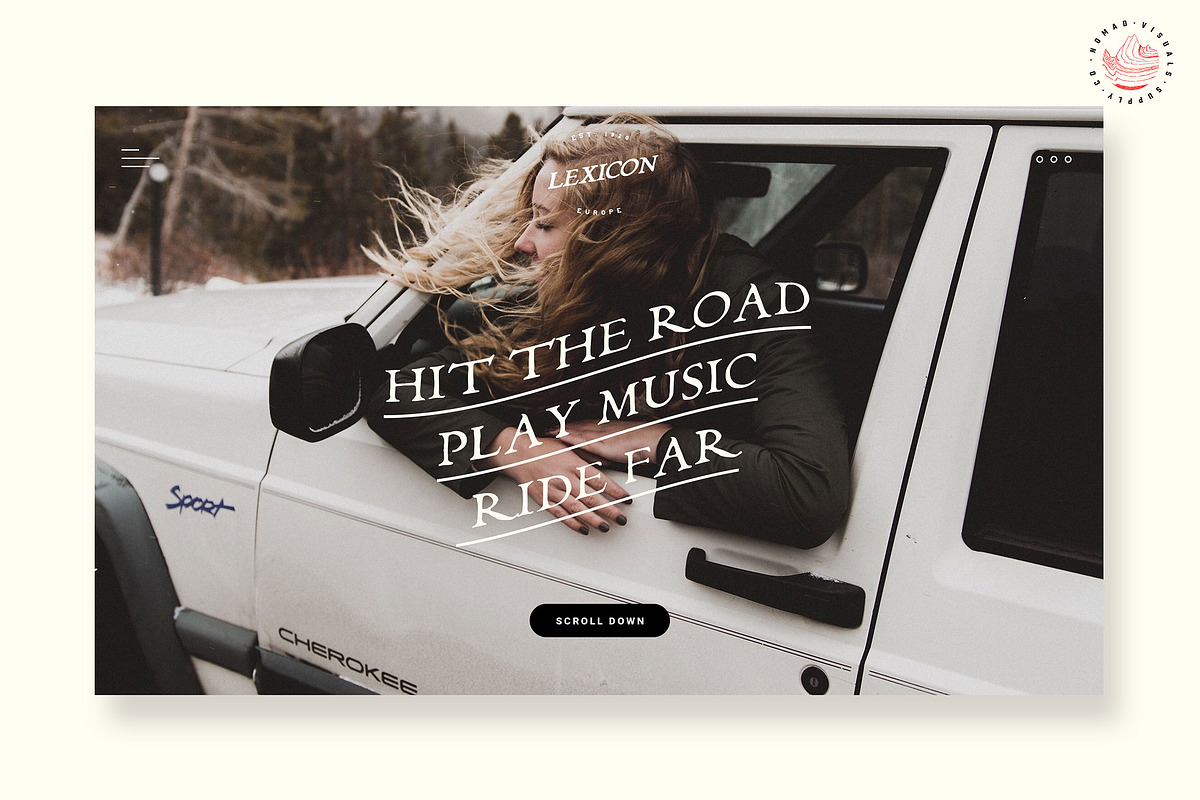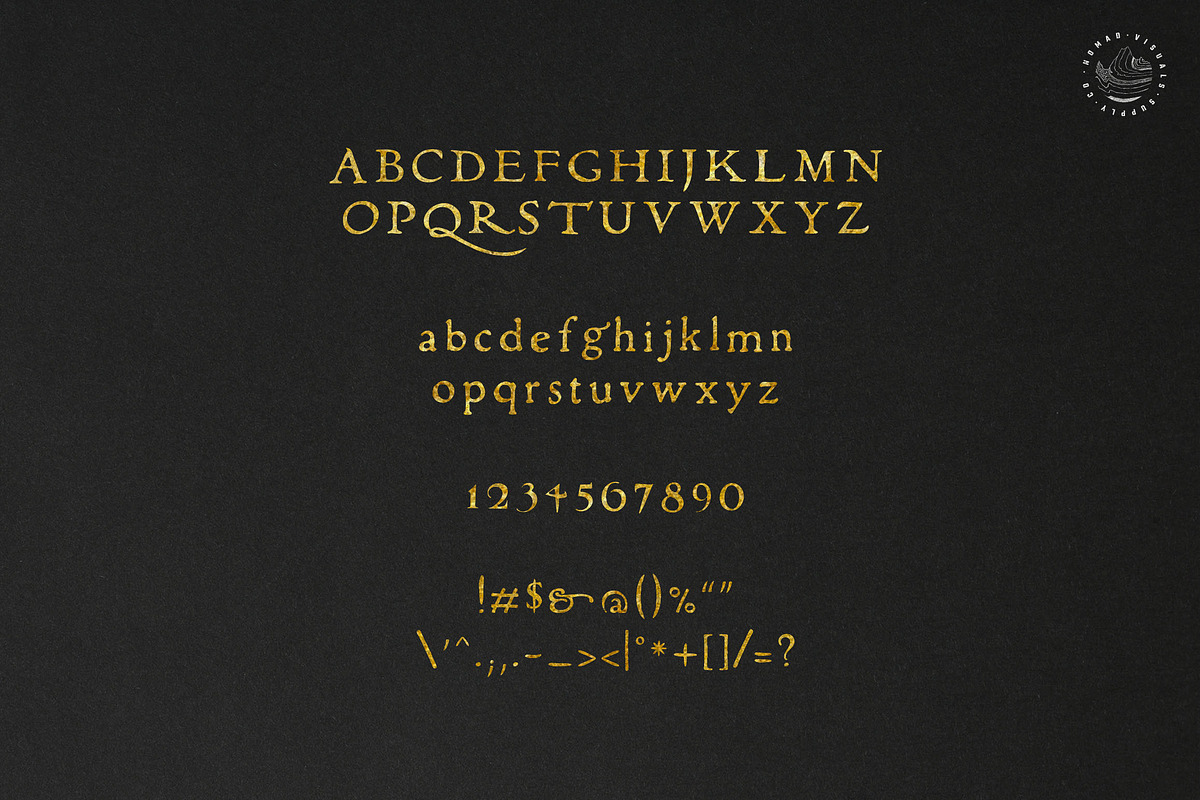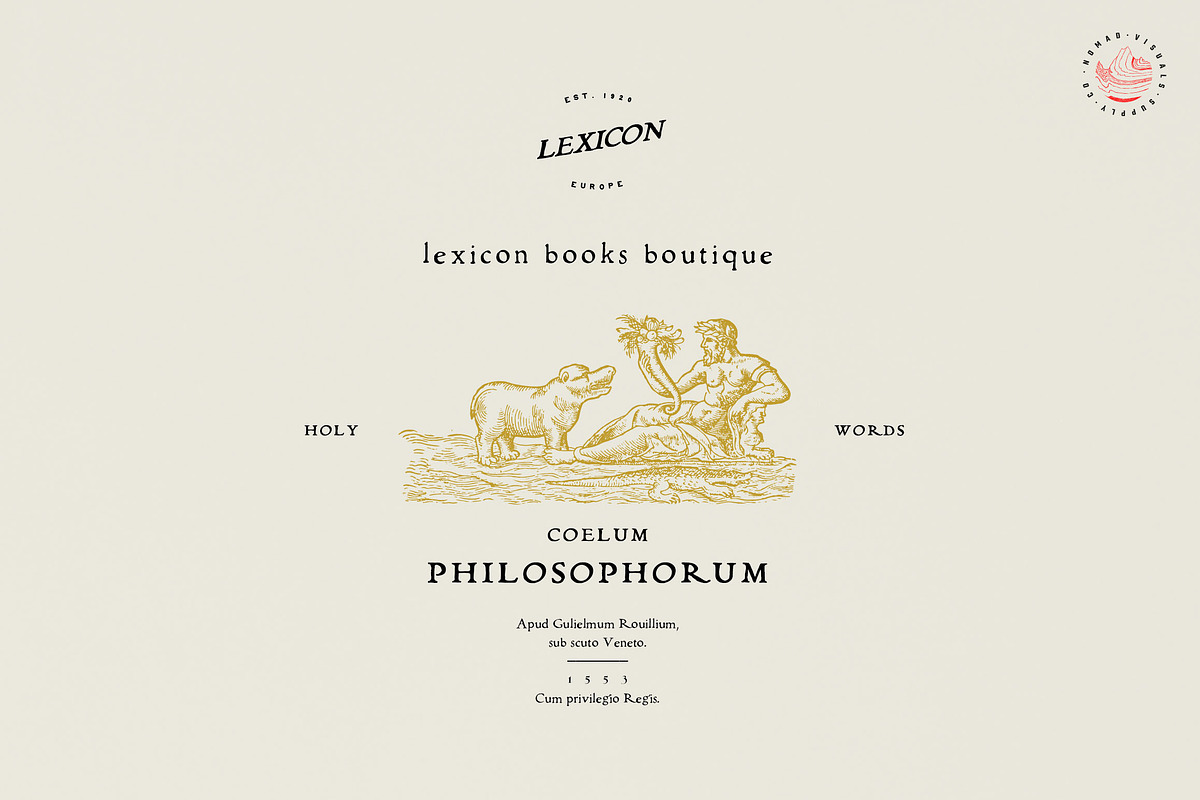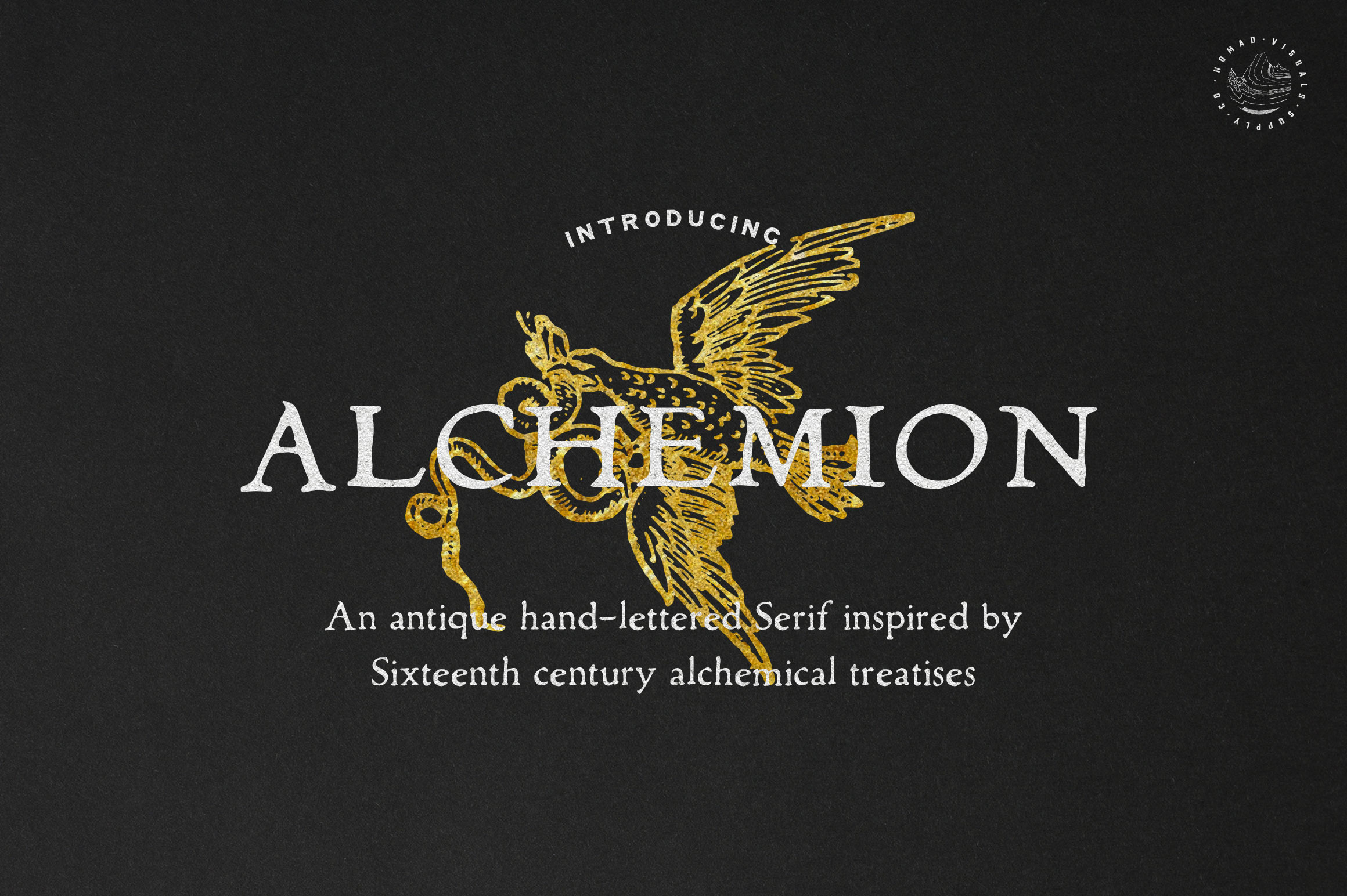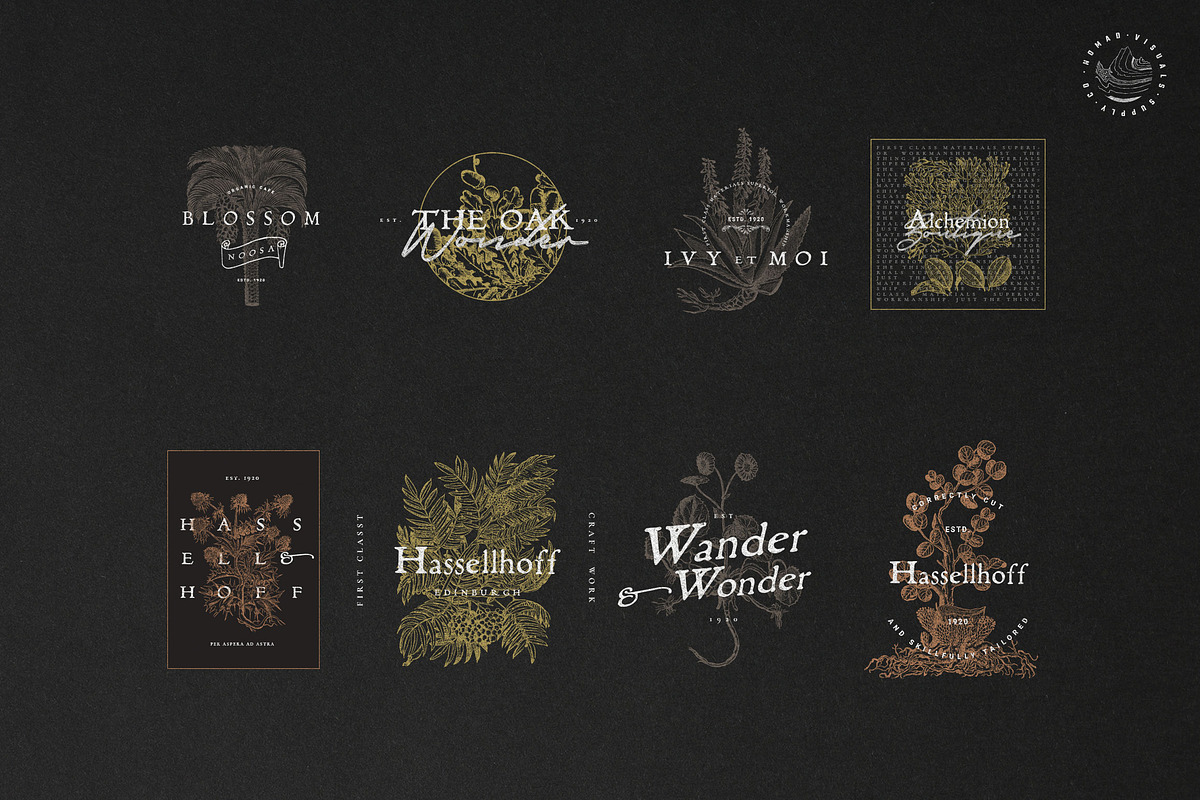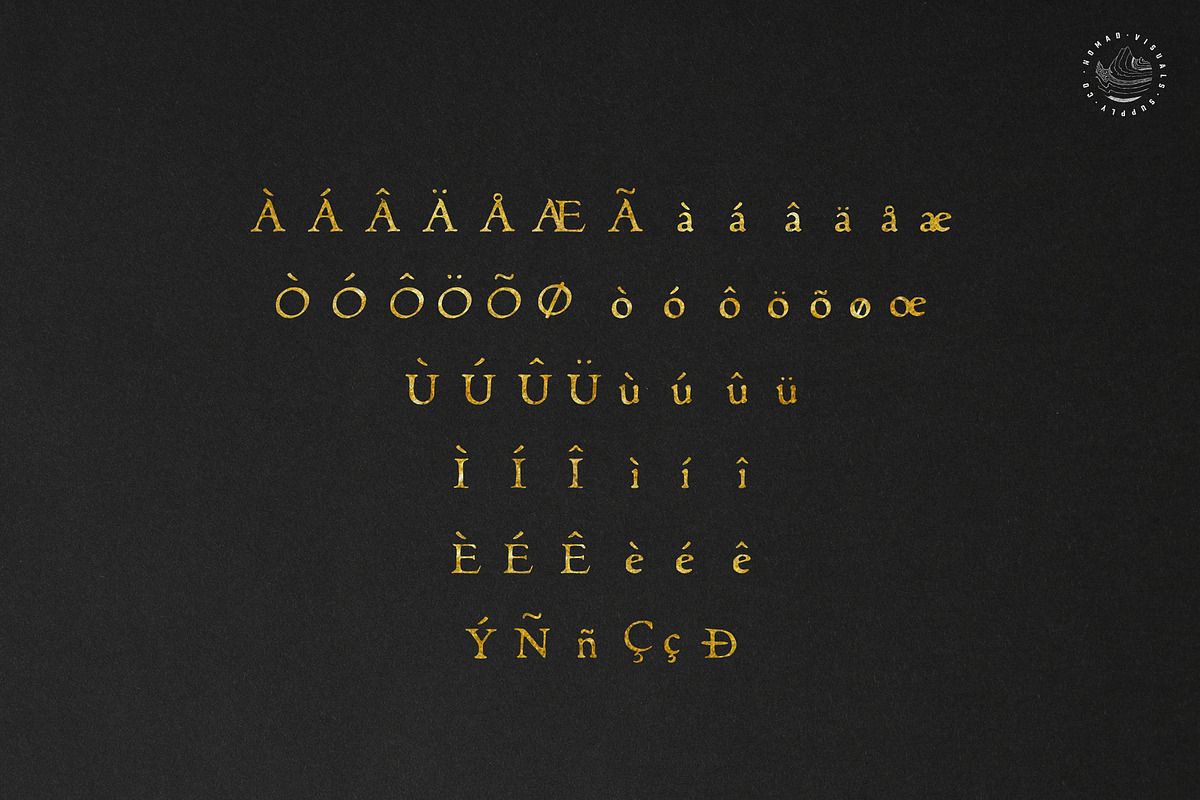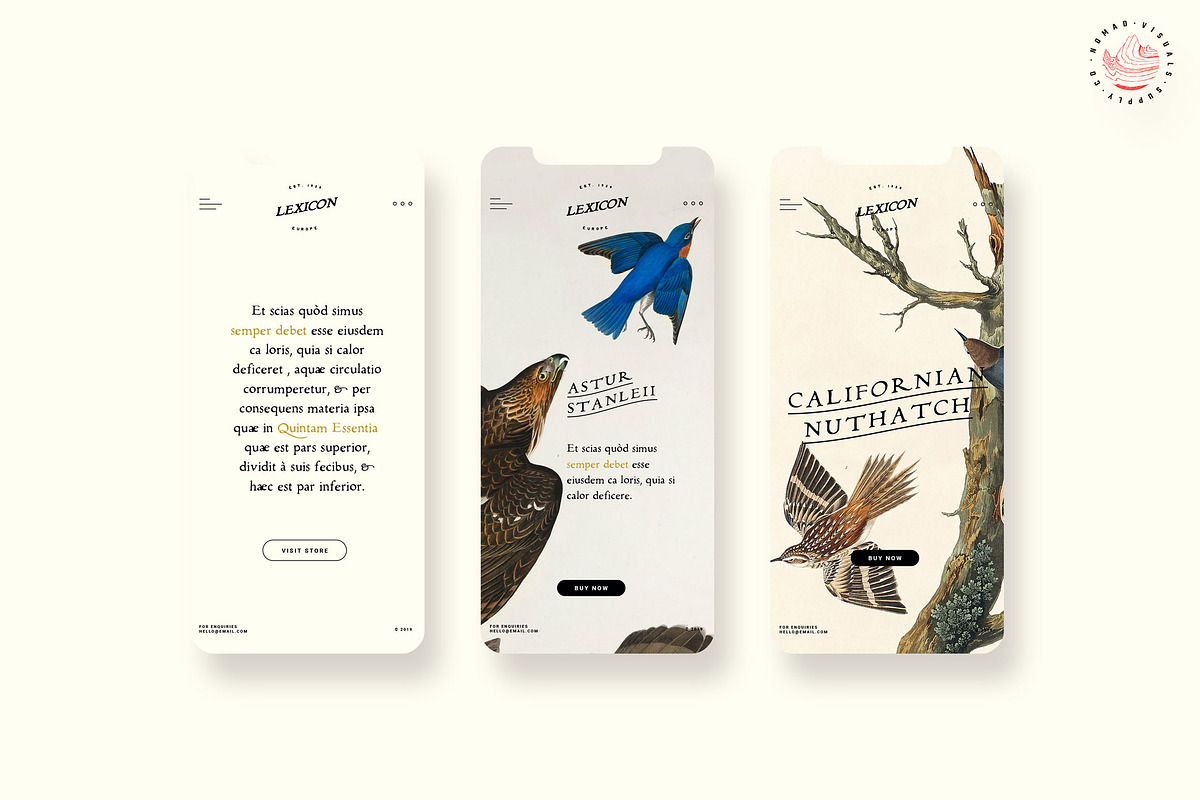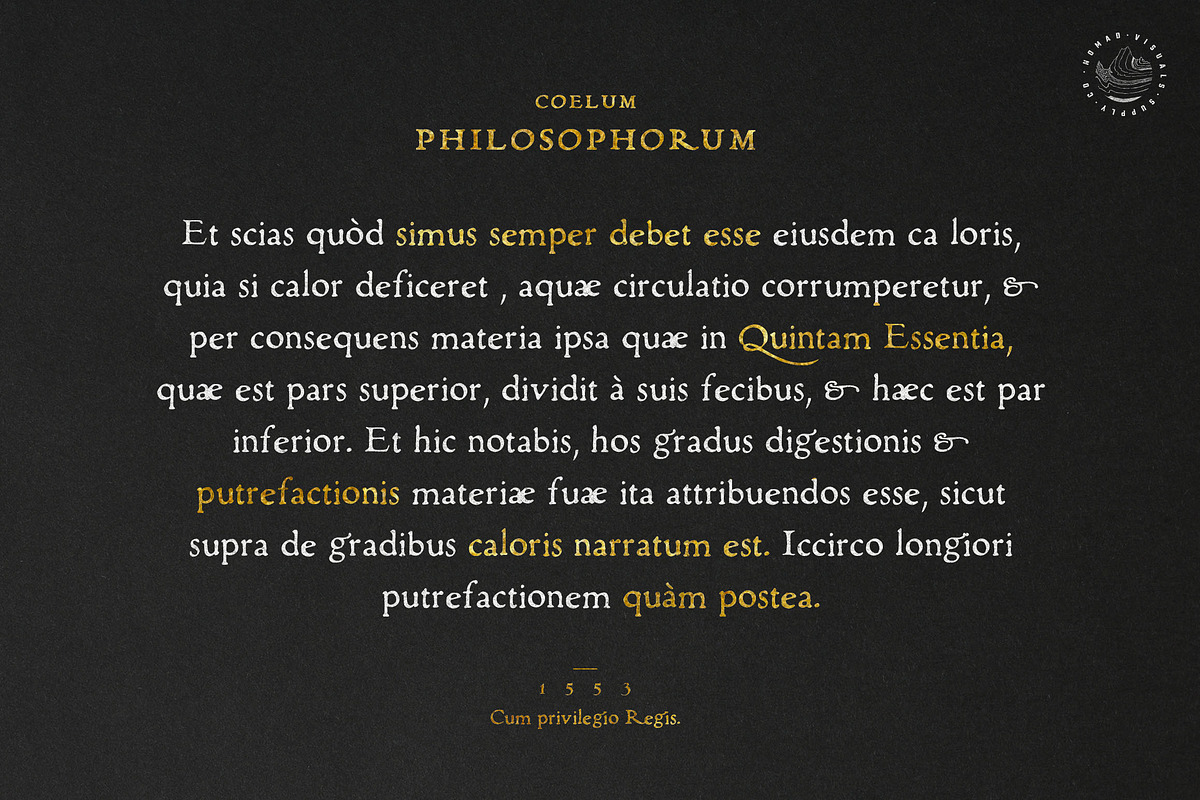
Alchemion - Display Serif Font
Introducing Alchemion — Display Serif font
Alchemion is an antique hand-lettered display serif font based on Sixteenth century alchemical treatises. Dive in the fascinating look and feel of centuries old books.
This font looks amazing for logo design, invitations and labels. It's perfect to give a unique vibe to your digital products and websites.
The font includes numbers, punctuation and special characters for international languages support.